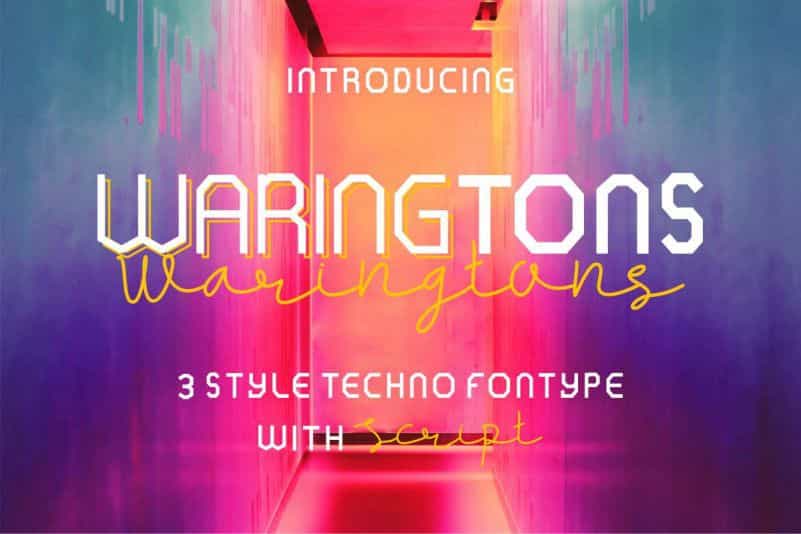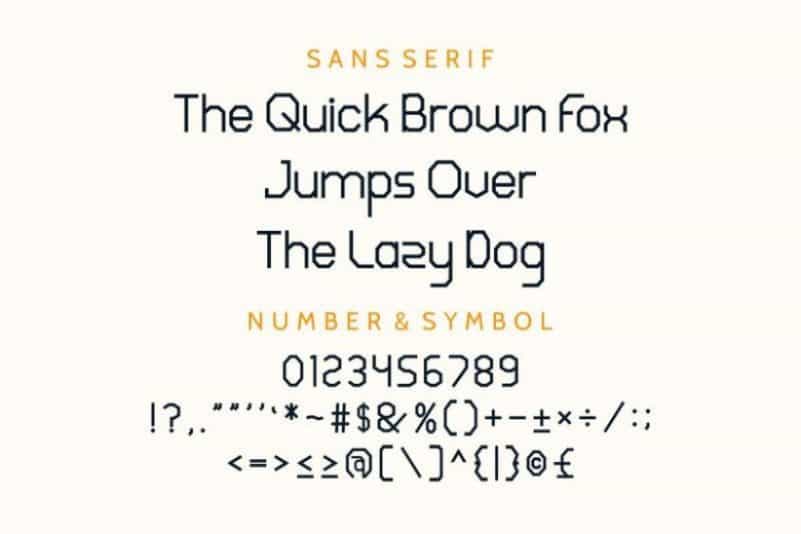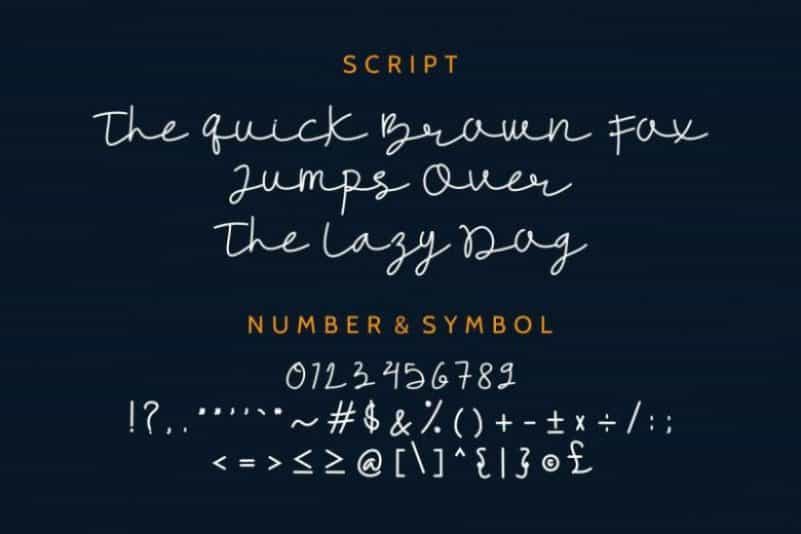
Discover Waringtons Font Family, part of the Sans Serif Handwritten collection—a versatile and unique font perfect for adding a personal touch to your projects. Download it for free and enjoy crafting designs with style, from invitations to social media posts. This font is available exclusively for personal use, giving you the freedom to create without limits. Unlock your creativity with Waringtons Font Family today!
WARINGTONS is a new font family consist of 4 fonts styles : Regular, Bold, Outline and Script, Handwritten. On the package.